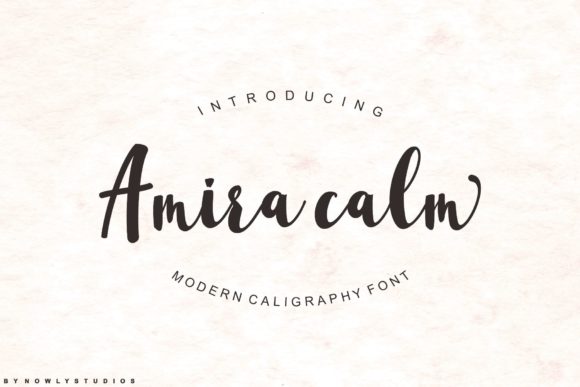
The Quest for the Perfect Font: How Amira Calm Stole My Heart
I still remember the summer I spent working on a branding project for a beachside cafe. I had a clear vision of a relaxed, summery vibe, but somehow, my design just wasn’t coming together. The issue? I couldn’t find a font that captured that carefree, laid-back feel. That was until I stumbled upon Amira Calm, a cool and relaxed script font that instantly resonated with my design aesthetic.
Amira Calm has become a go-to font in my design toolkit, and for good reason. Here are a few things that make it stand out:
• ✨ Contemporary style: Amira Calm boasts a fresh, modern look that’s perfect for designs that need a touch of sophistication.
• ✅ Ease of readability: Even at smaller font sizes, Amira Calm remains clear and easy to read, making it versatile for various design applications.
• 💫 Summery feel: The font’s relaxed, airy quality instantly evokes a sense of summer and freedom.
Of course, no font is perfect, and Amira Calm has a few minor quirks:
• 🤔 Limited use of uppercase letters: While the font’s lowercase letters shine, the uppercase letters don’t quite have the same level of polish.
• ⚠️ Occasional kerning issues: As with any script font, you may need to adjust kerning for optimal results, especially when using it in combination with other fonts.
One of the strengths of Amira Calm is its support for OpenType features. By accessing the Glyphs panel in compatible design software, you can:
• Activate stylistic alternates for varied letterforms.
• Explore swashes and ornaments to add decorative touches.
The Designer Inspiration Behind Amira Calm
While the exact inspiration behind Amira Calm might not be well-documented, it’s easy to imagine that the designer was influenced by the carefree spirit of summer. Perhaps they drew inspiration from beachside strolls, sunset hues, and the relaxed atmosphere of a seaside escape. Whatever the inspiration, Amira Calm captures the essence of a laid-back summer vibe perfectly.
What makes Amira Calm suitable for summer-themed designs? Its relaxed, airy quality and summery feel make it an excellent choice for designs that evoke a sense of freedom and leisure.
Is Amira Calm difficult to read? No, Amira Calm is designed to be clear and readable, even at smaller font sizes.